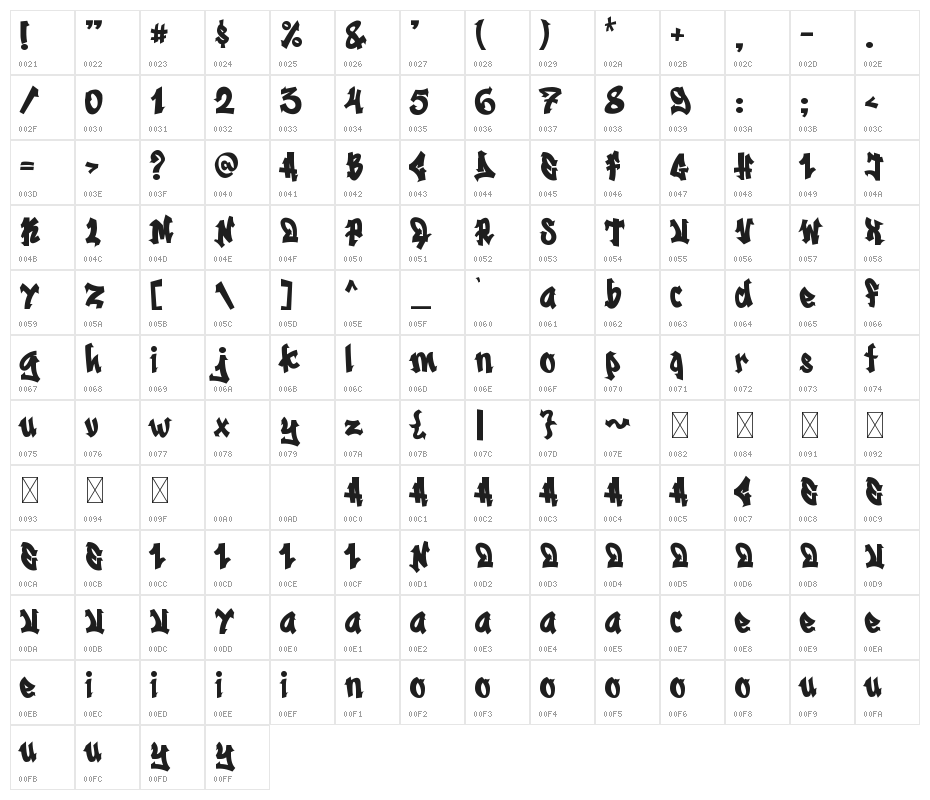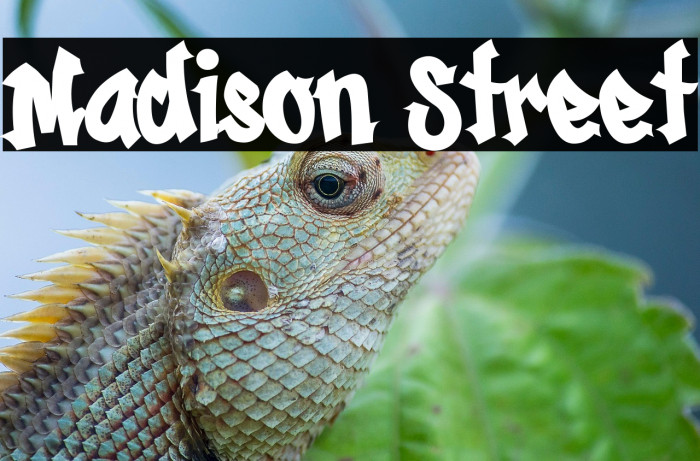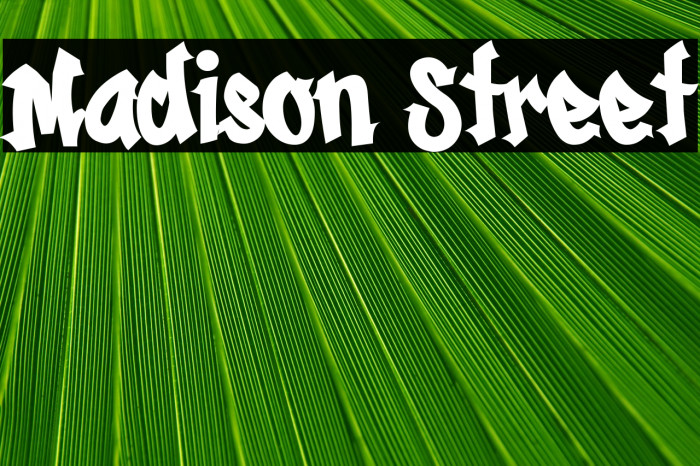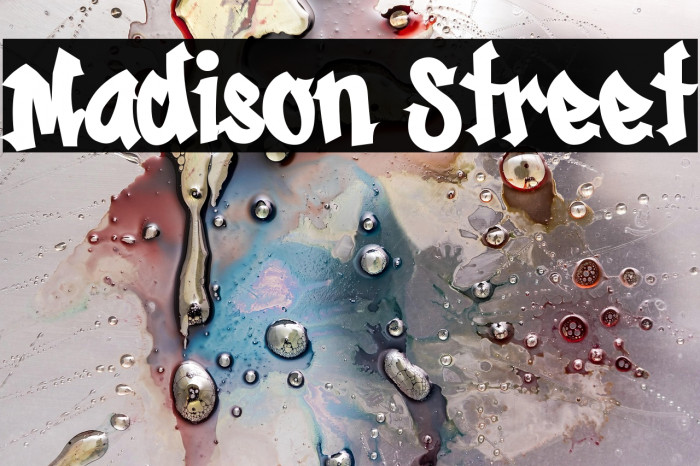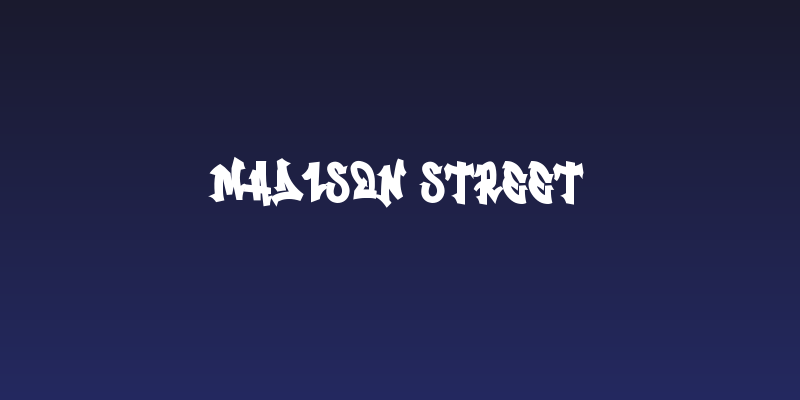
Madison Street Font
Madison Street Description
This font exudes a bold and edgy graffiti-inspired style, characterized by sharp angles and dynamic strokes. The uppercase and lowercase letters maintain a consistent, rebellious aesthetic, with exaggerated serifs and a slightly condensed form. Numbers and special characters follow the same energetic design, making the font ideal for impactful and artistic expressions. Its unique style captures attention and conveys a sense of urban culture and street art. The font's boldness and distinctiveness make it suitable for projects that require a strong visual impact.
| Overall Style | Urban, Graffiti, Edgy |
| Proposed Projects | Ideal for street art designs, urban-themed posters, music album covers, and edgy branding projects. |